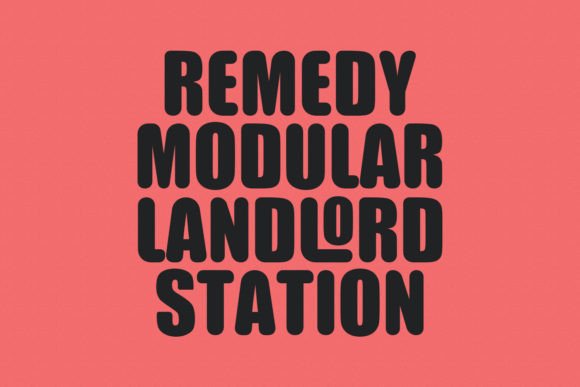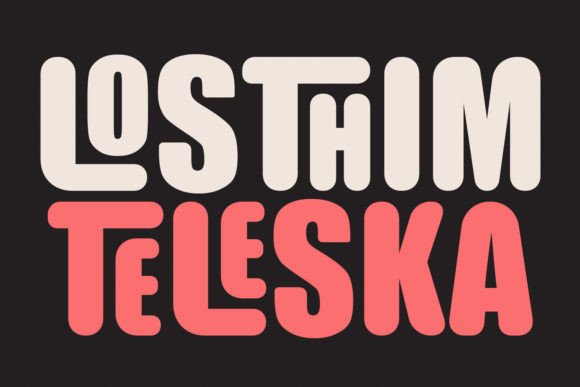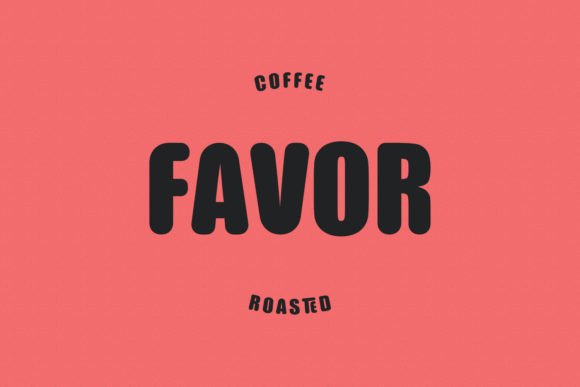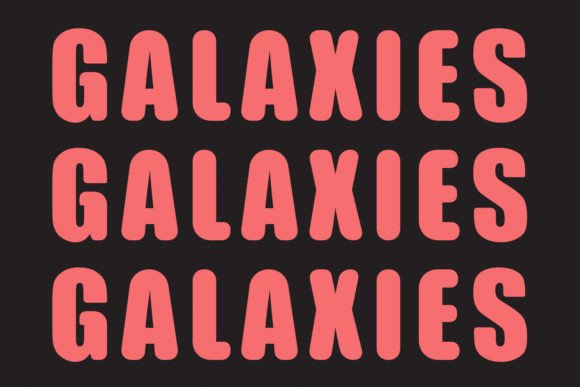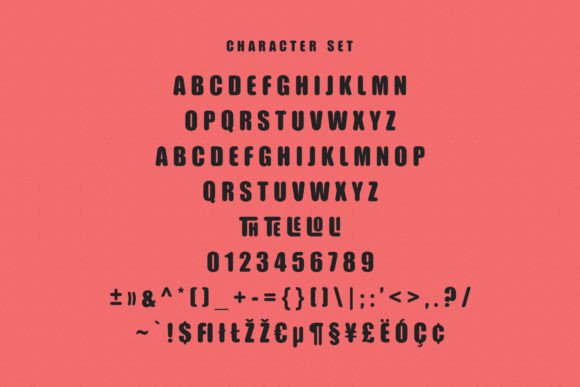
Introduction to Phuketo Font
Remember that moment when you finally nailed the perfect design for your social media campaign, and it was all thanks to the perfect font choice? The one that made your headline pop and drew in the crowd? For designers, finding the right font can be a game-changer, and that’s exactly what Phuketo Font aims to deliver.
As a high-quality design resource, Phuketo Font is more than just a pretty face – it’s a valuable tool for creatives looking to elevate their projects. With its smooth edges and clean lines, this friendly and stylish typeface is perfect for making your headlines and titles stand out from the crowd.
Key Features of Phuketo Font
- Unique characteristic: Distinctive, hand-drawn style with a modern twist
Honest Review: Phuketo Font
As a designer, I’m always on the lookout for high-quality design resources that can elevate my creative projects. Recently, I stumbled upon the Phuketo Font, and I’m excited to share my honest review with you.
- ✨ The Phuketo Font has a unique and modern design aesthetic that’s perfect for trendy projects.
- ⚠️ The font family is relatively small, which may limit its usability for long-form text.
Overall, I’m impressed with the Phuketo Font’s unique design and flexibility. While it may have some limitations, it’s still a valuable resource for designers looking to add a touch of modernity to their creative projects.
Phuketo Font: A High Quality Design Resource
The Phuketo Font is ideal for use in logos, branding materials, and marketing materials. Its high quality and versatility make it a popular choice among designers and creatives.